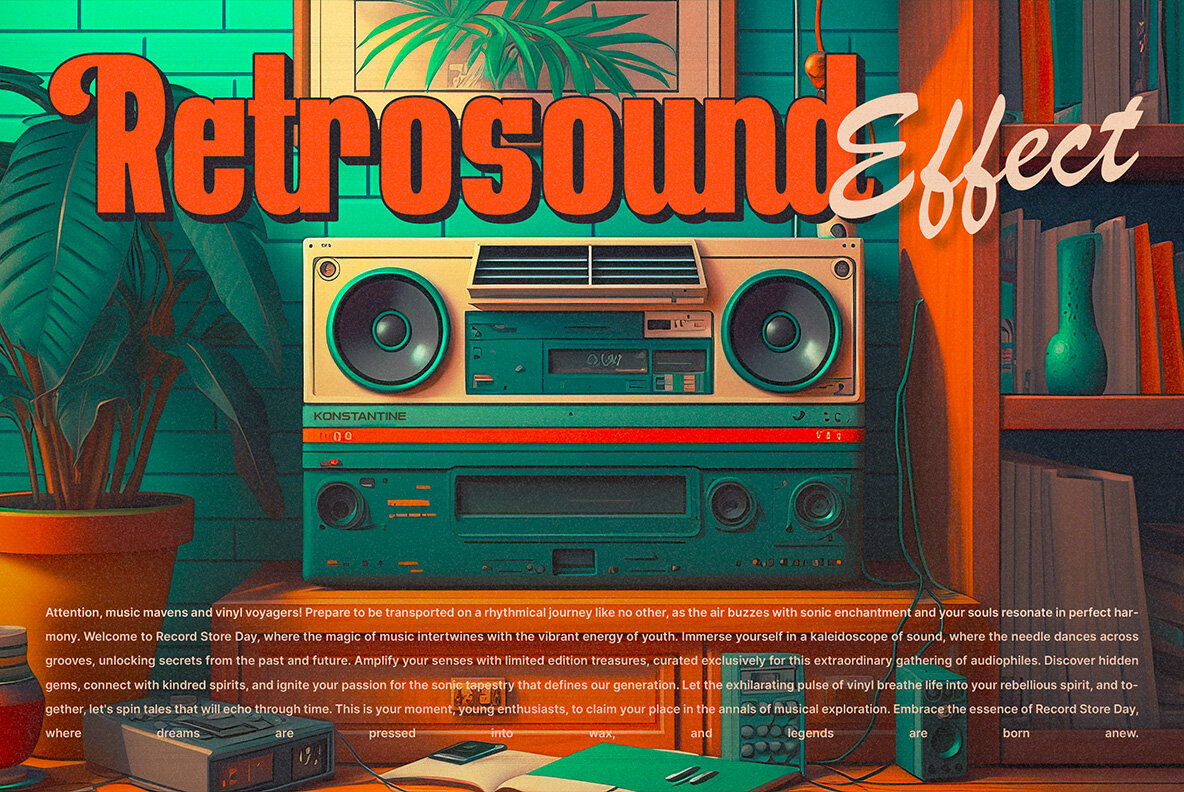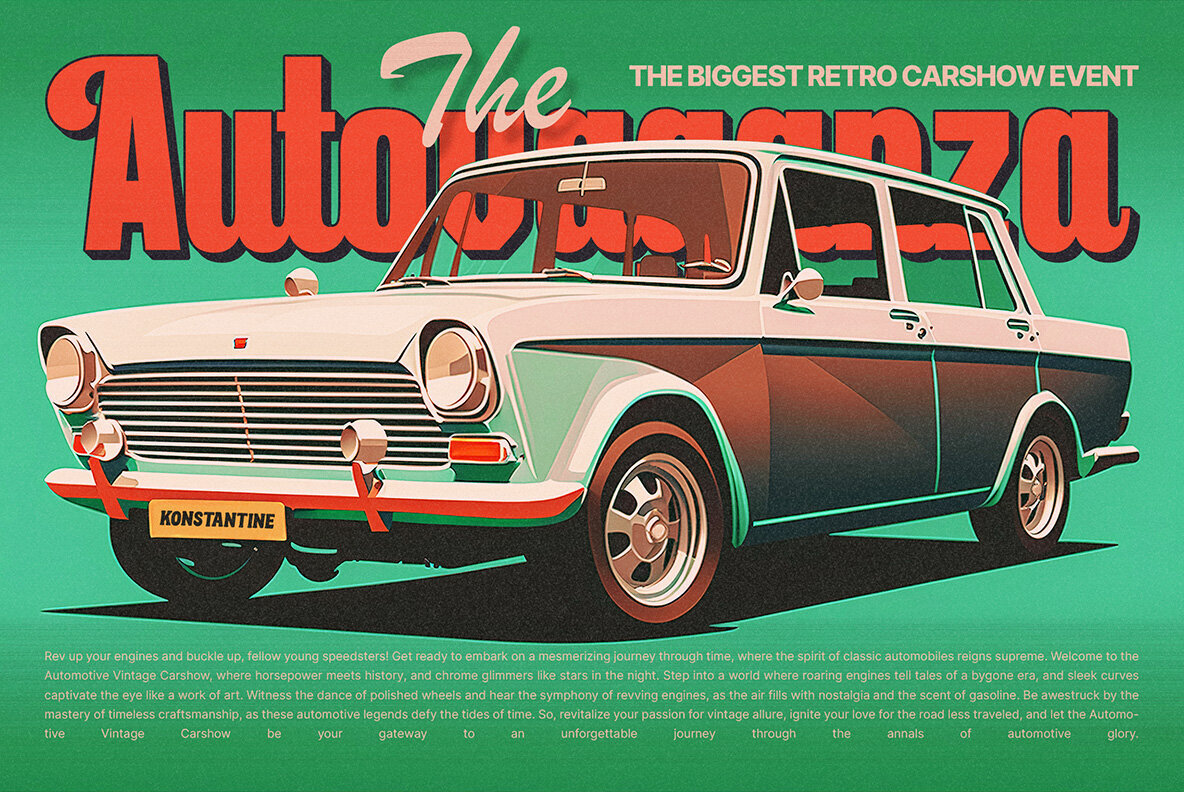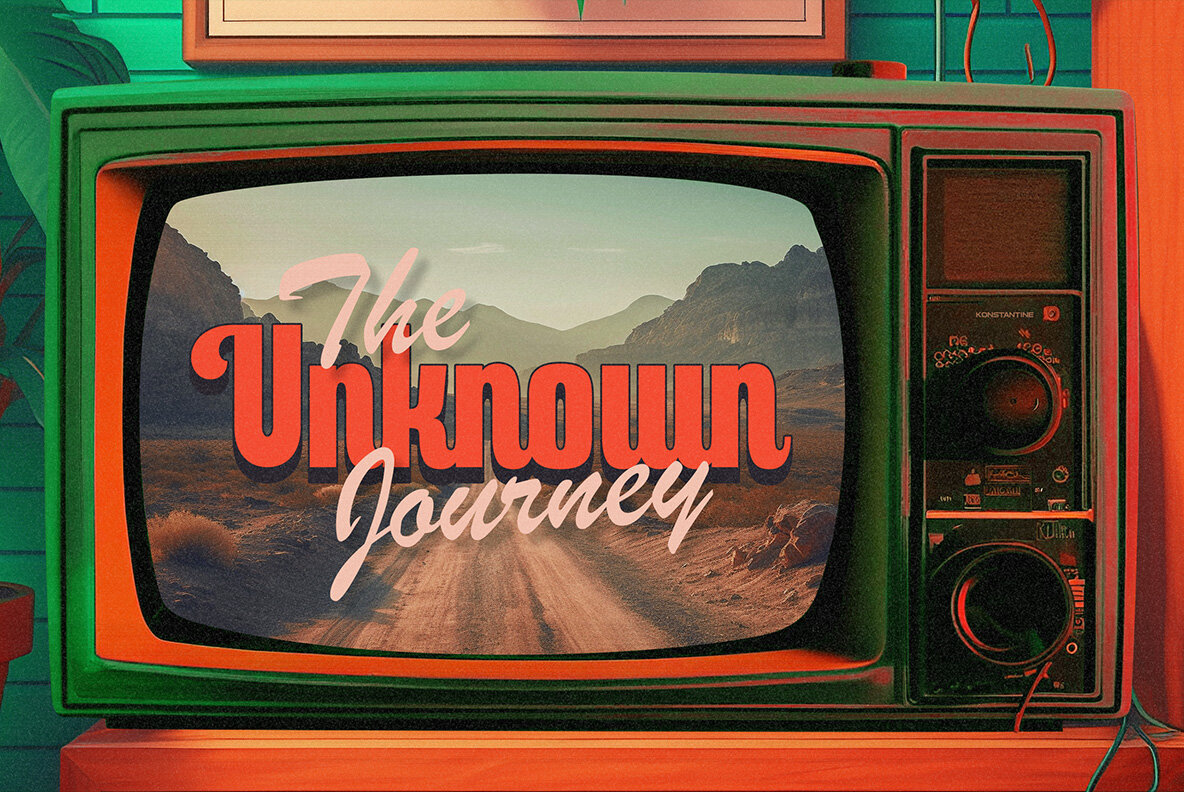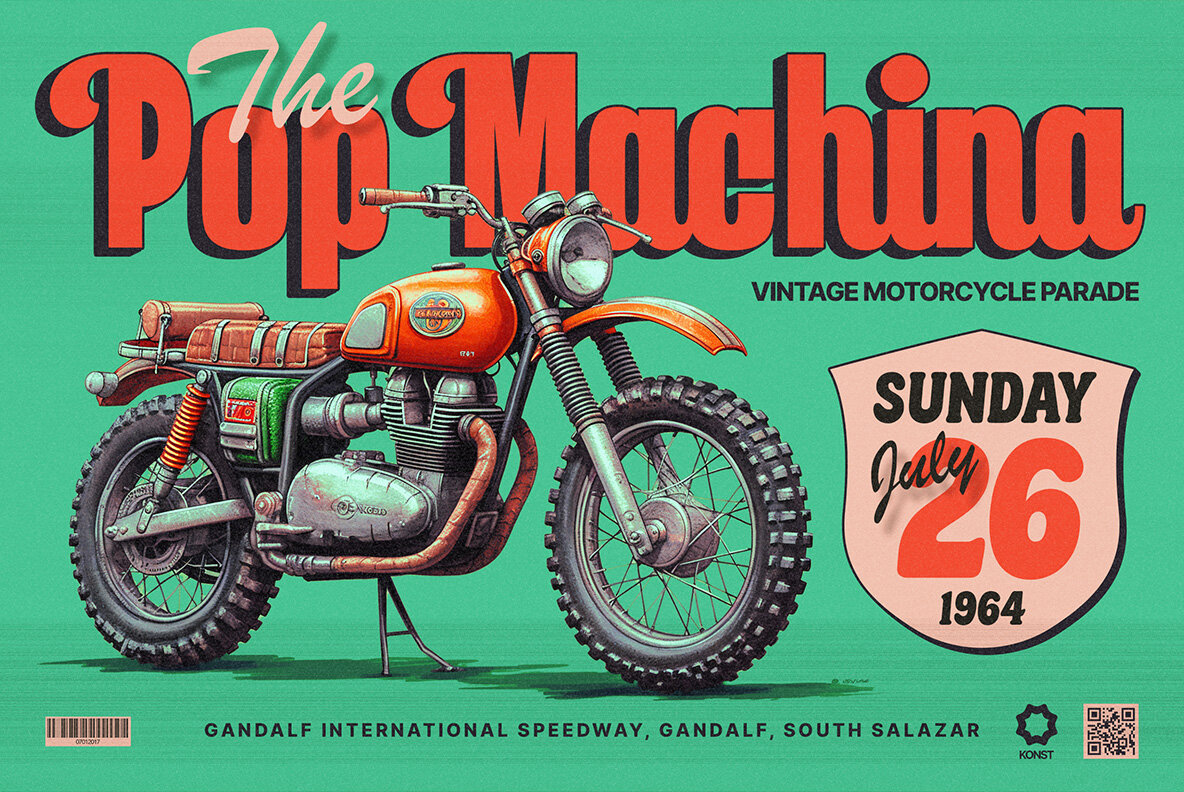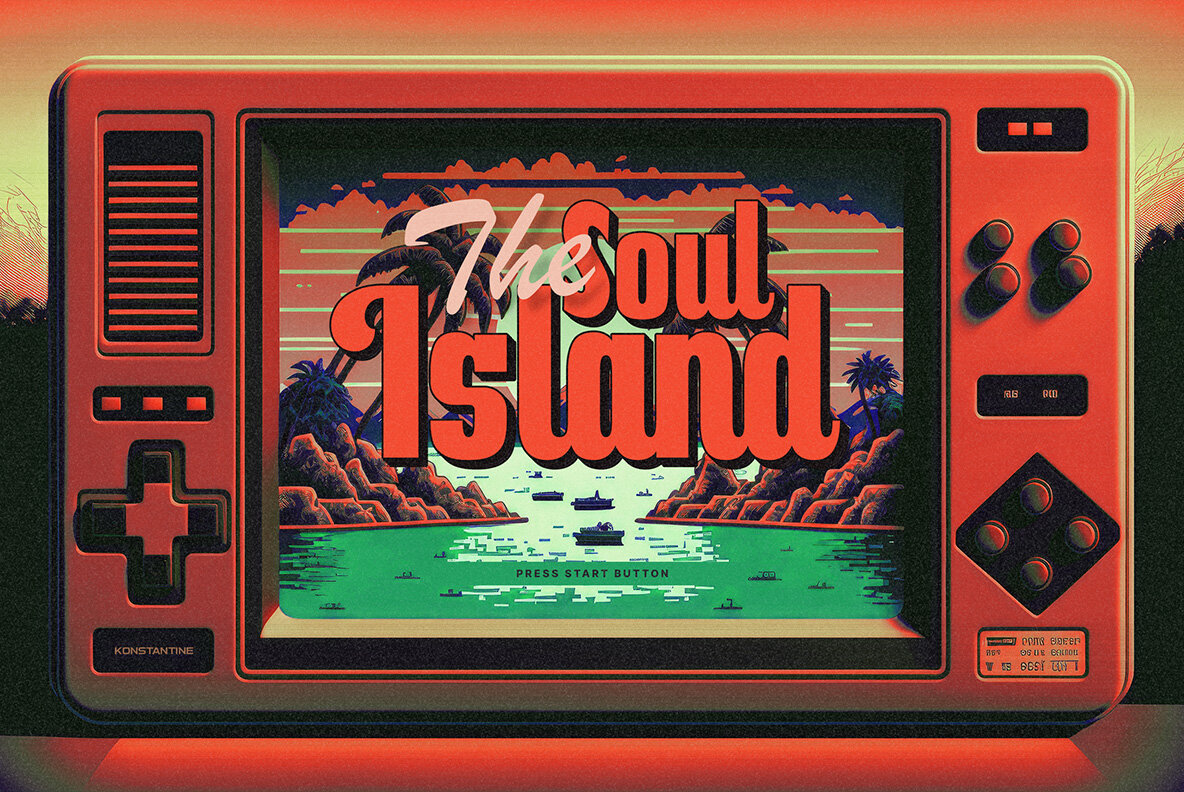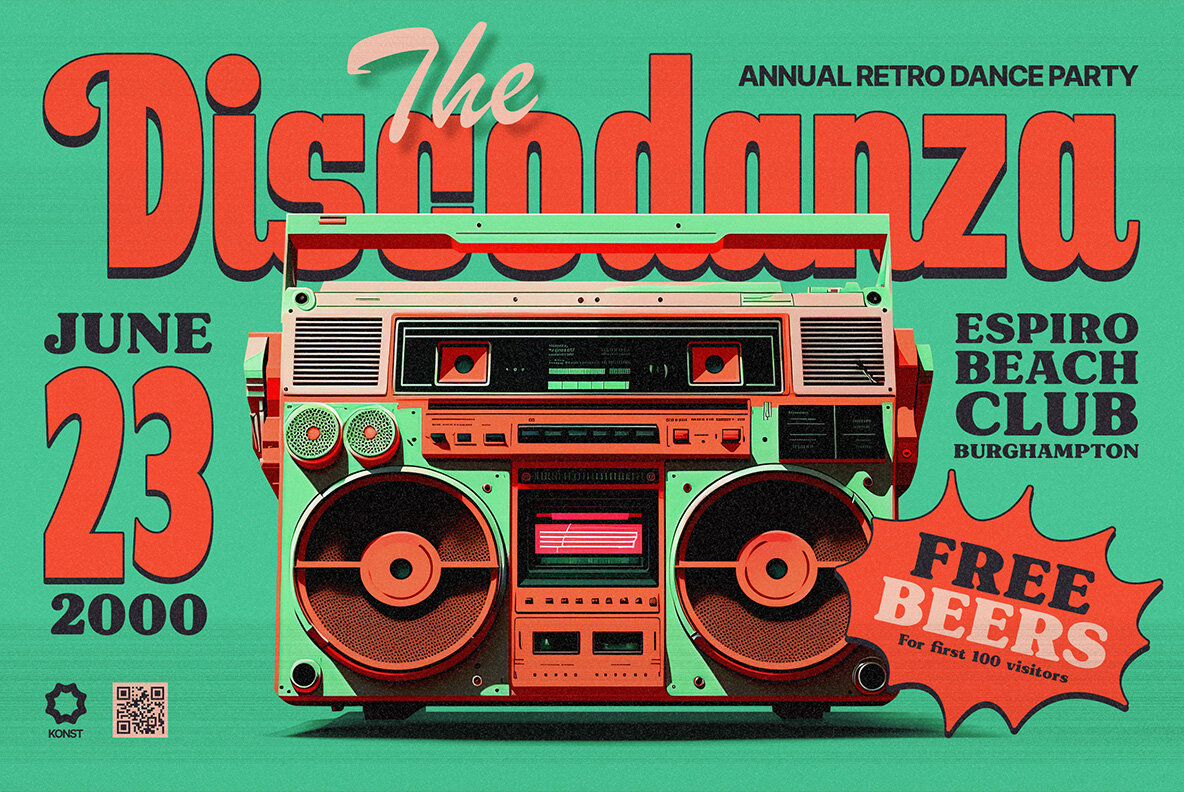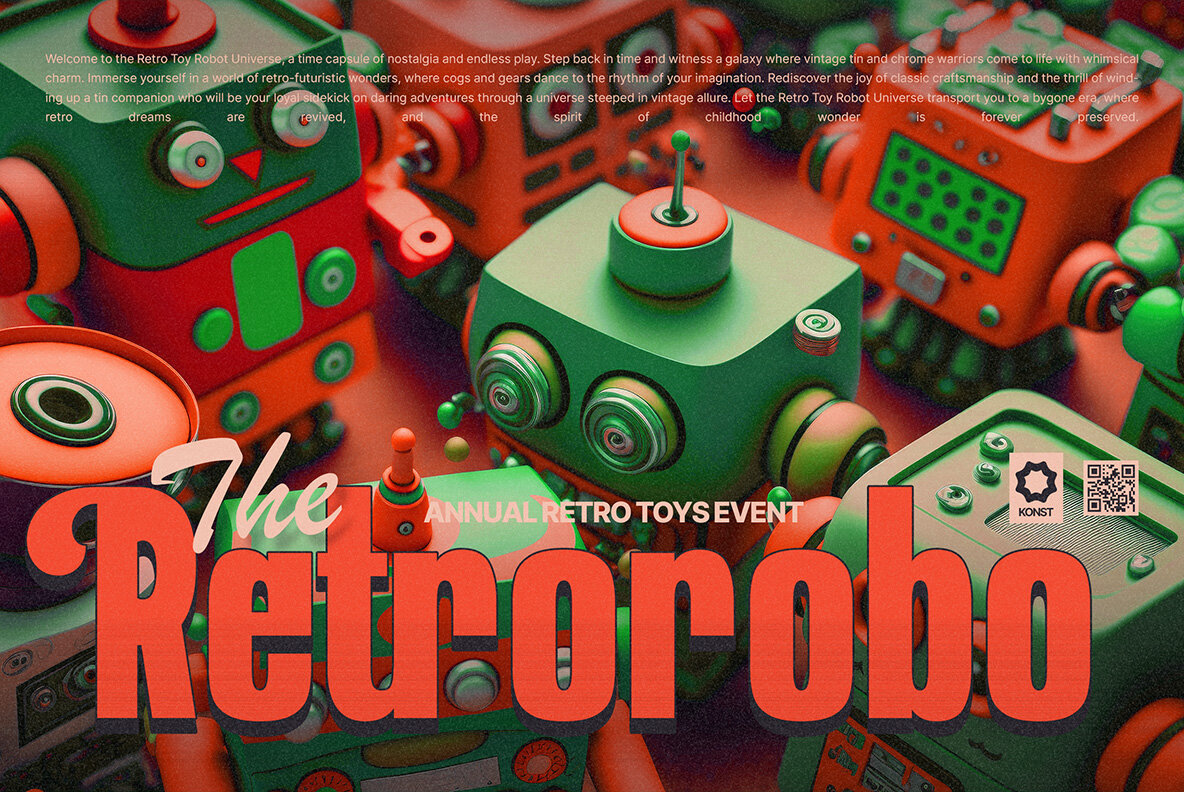
Quinbuilt Font
Quinbuilt Regular
Quinbuilt is the epitome of vintage charm seamlessly blended with modern design prowess. Elevate your creations with a touch of nostalgia that captures hearts and leaves a lasting impression. Dive into a treasure trove of meticulously crafted fonts that transport you back in time while fitting perfectly into today’s design landscape. Quinbuilt offers more than just fonts; it delivers an experience that whispers stories of the past while sparking fresh waves of inspiration. Whether revamping your brand identity, creating captivating marketing materials, or adding extra flair to personal projects, Quinbuilt has your back. With a diverse array of retro pop fonts at your fingertips, your creations will stand out in a sea of ordinary designs. Embark on a journey that merges nostalgia with innovation through Quinbuilt. Your masterpiece awaits—let Quinbuilt be your guiding star!Quinbuilt: Vintage Charm Merged with Modern Design